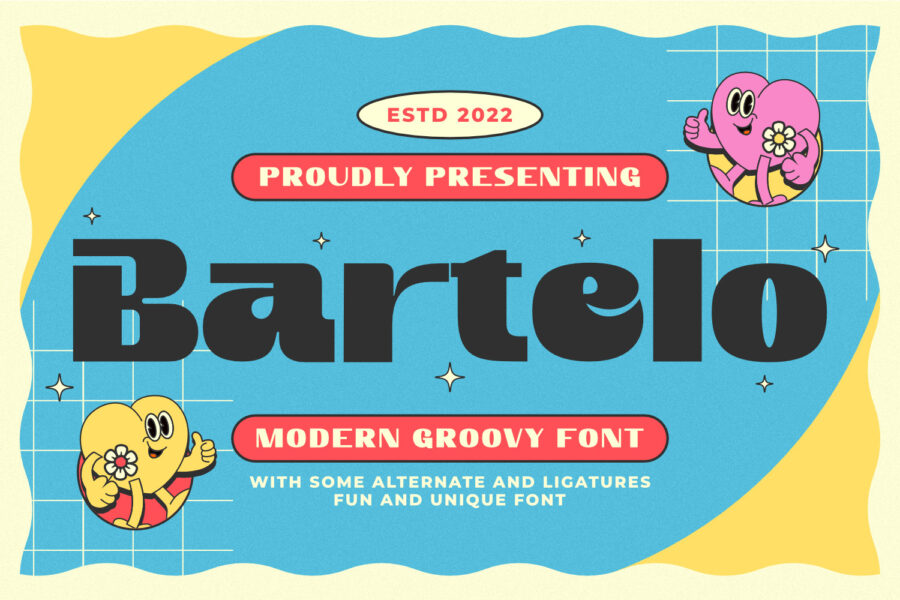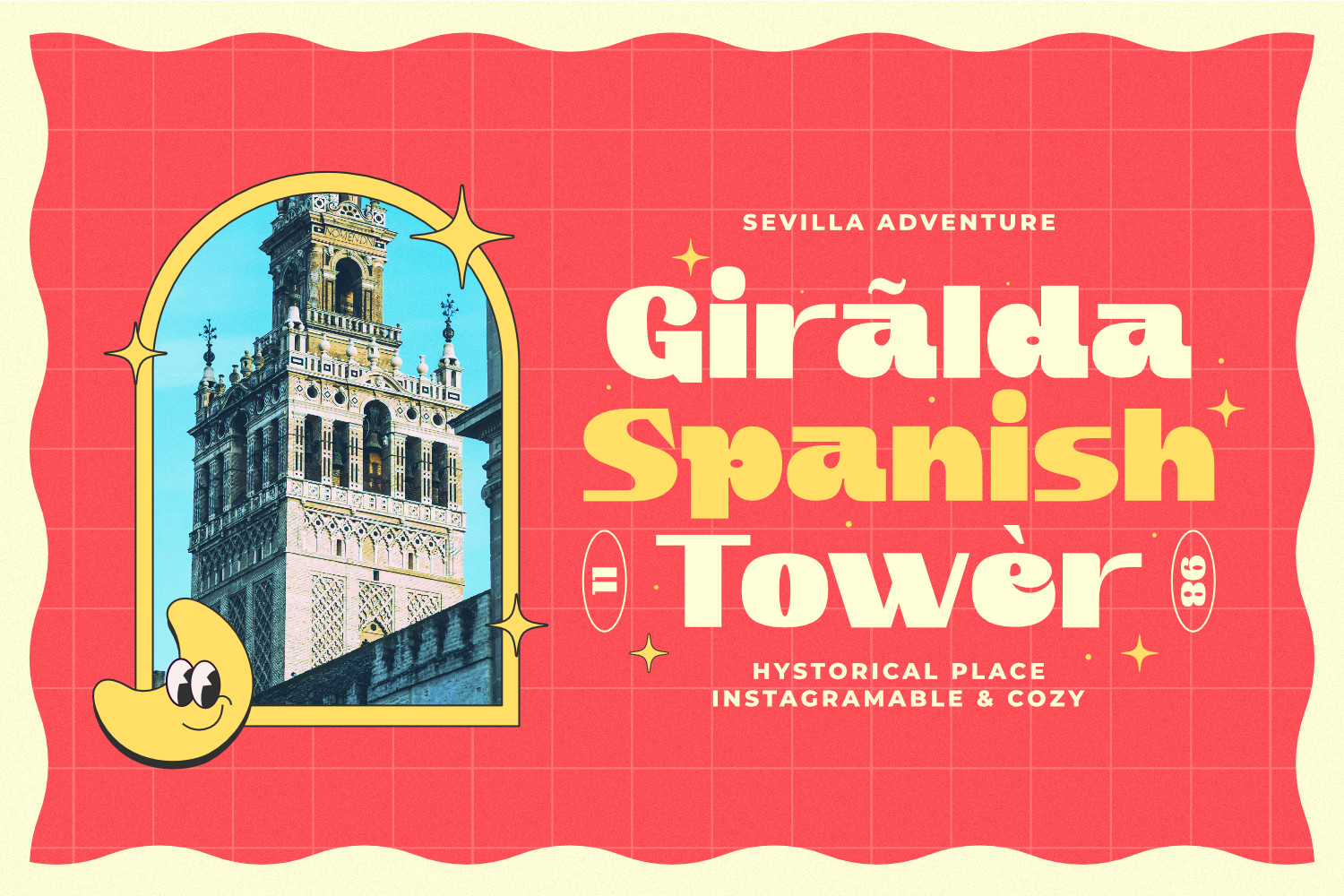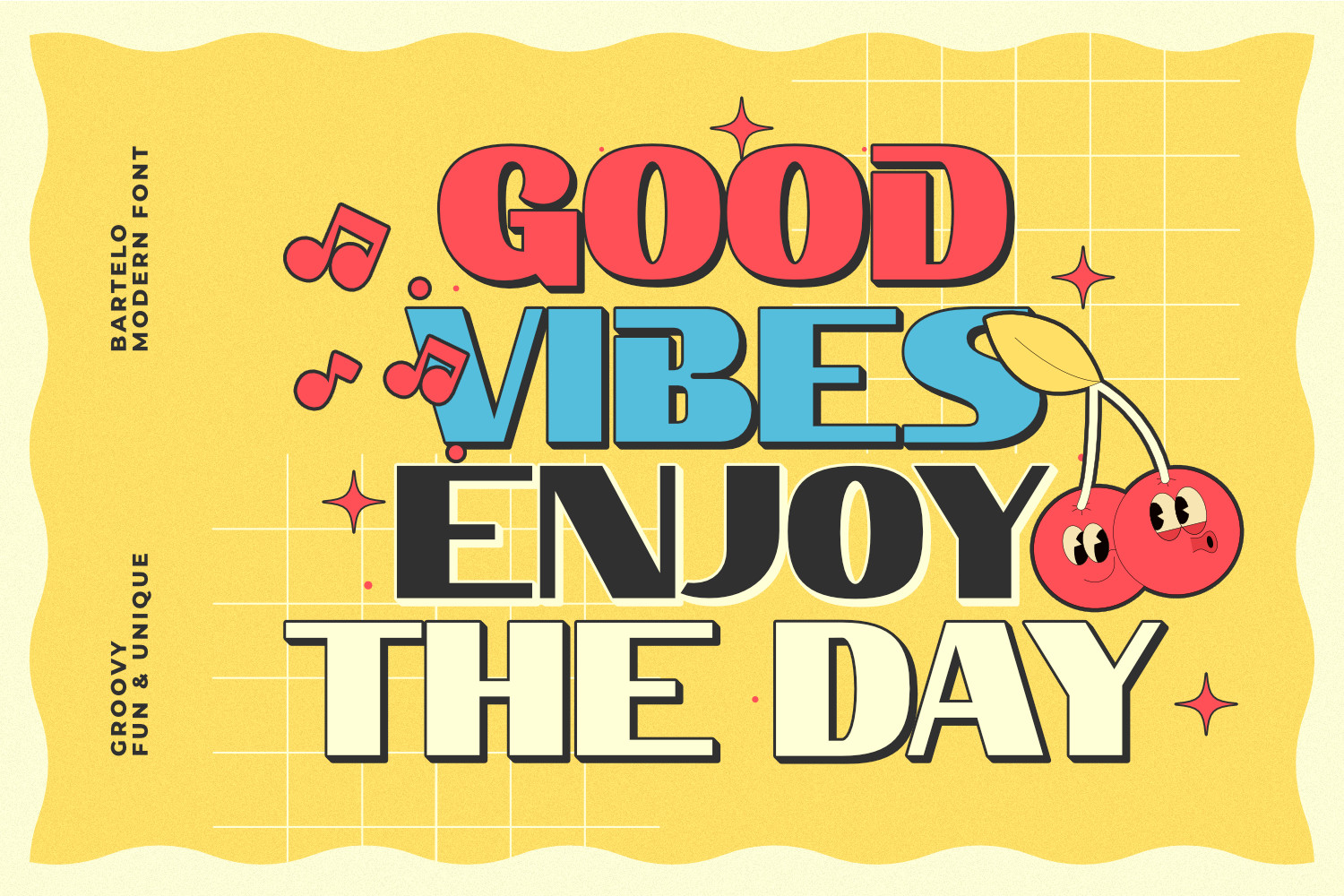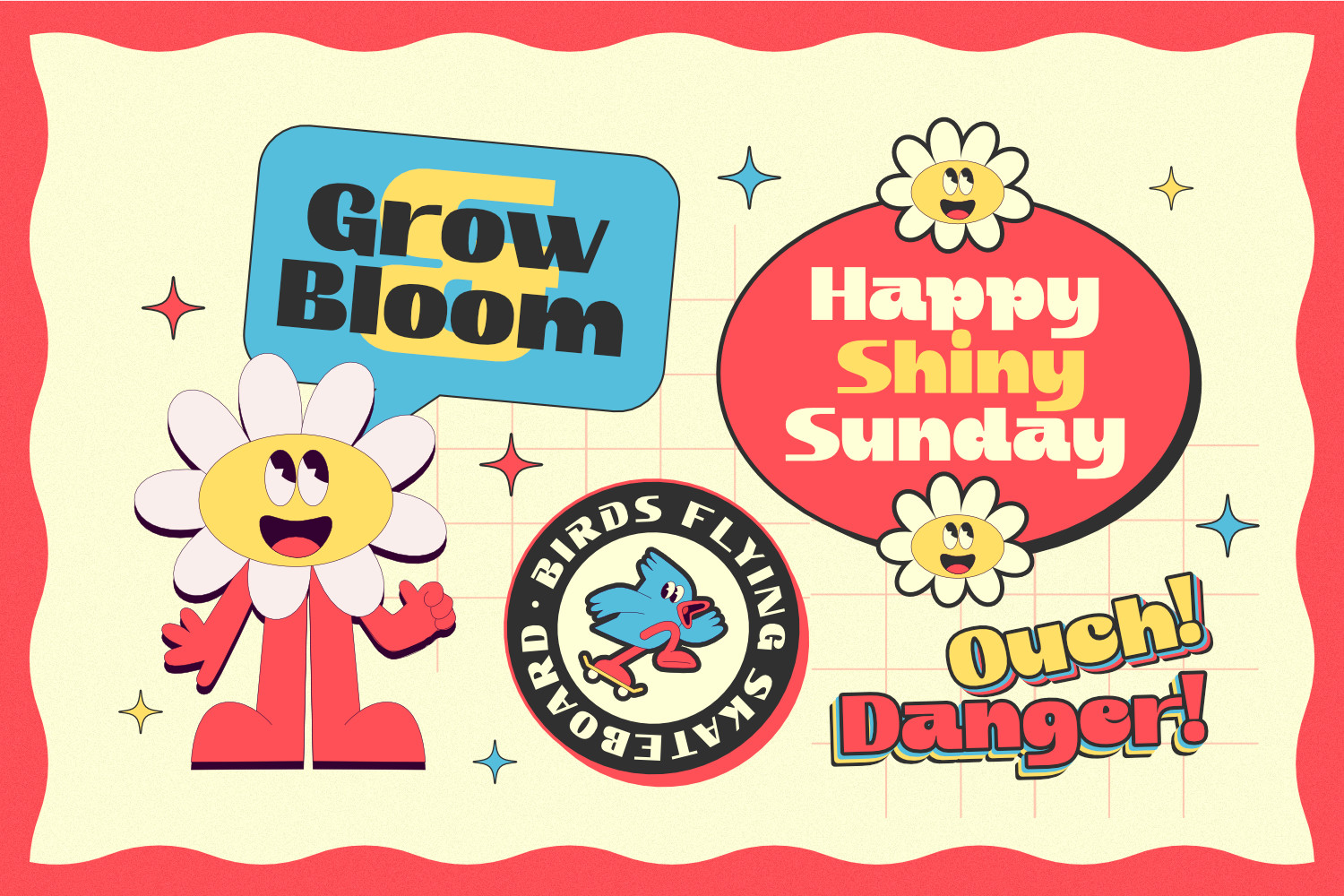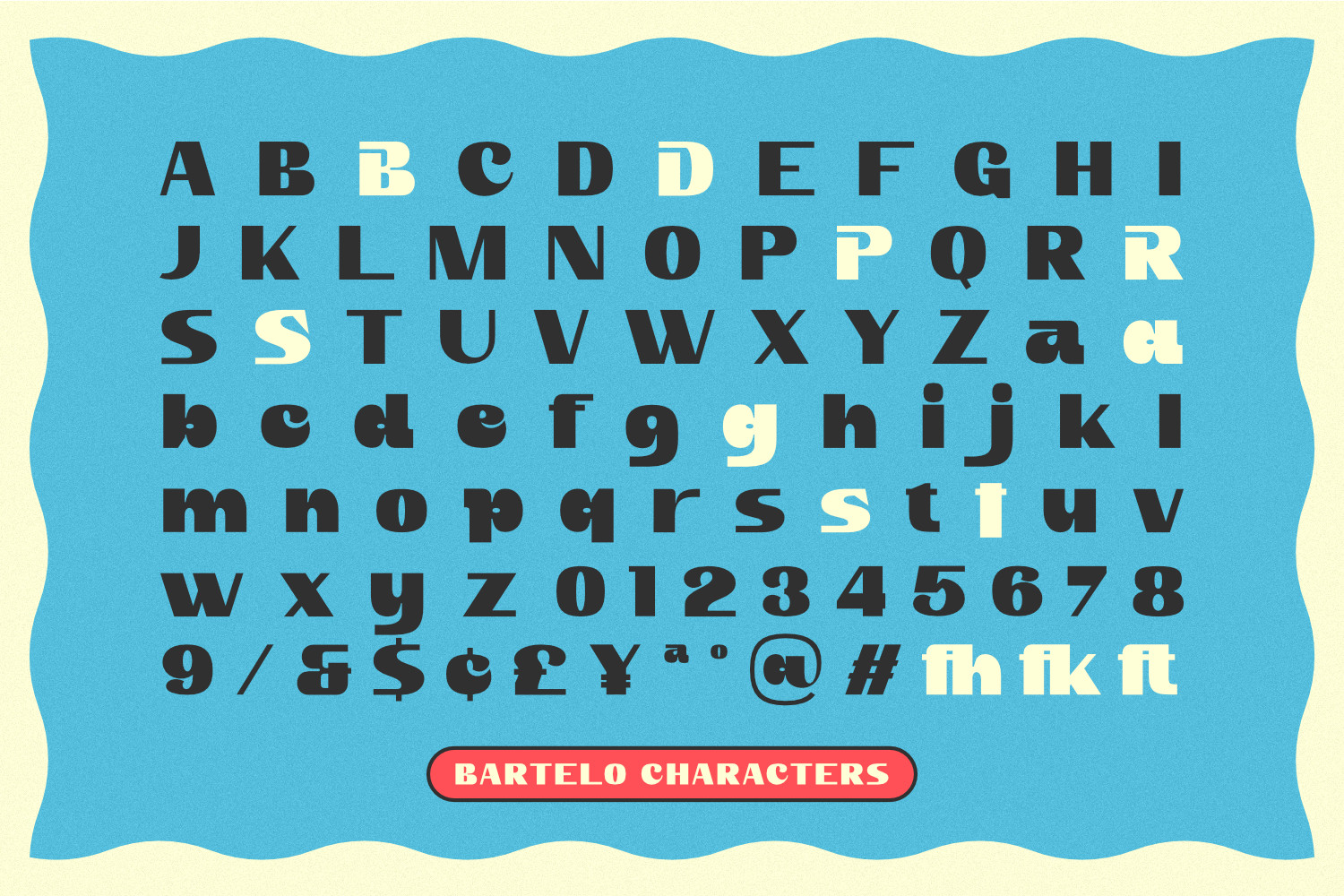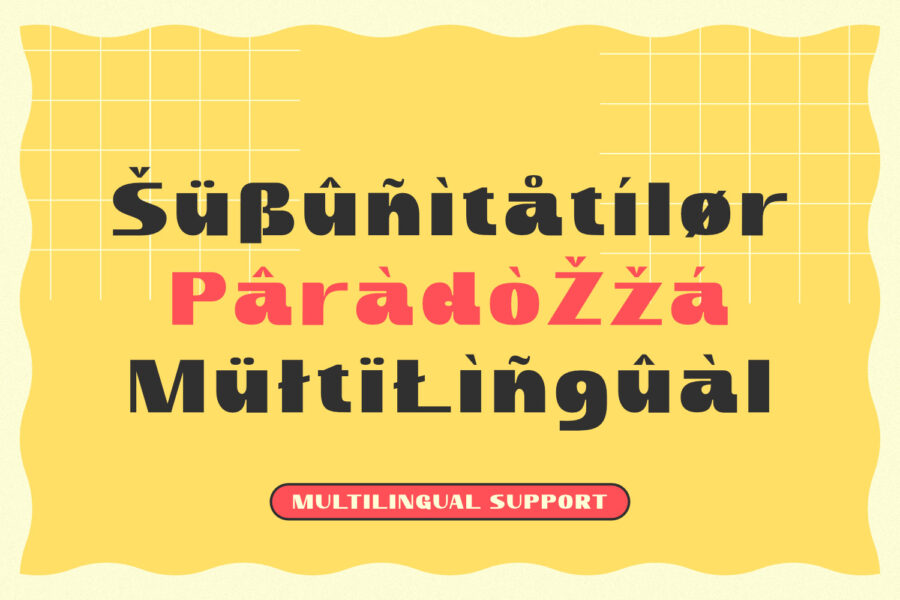
Bartelo is a bold, modern sans serif display font infused with a groovy retro spirit. Its chunky, high-contrast letterforms bring a strong personality to any creative work, while its unique alternates and ligatures add an extra layer of flair. Perfect for designs that aim to be fun, nostalgic, and eye-catching from posters and packaging to logos and apparel.
This font supports multilingual characters and features a complete set of alternates to maximize design versatility. With its upbeat and playful energy, Bartelo thrives in colorful, youth-oriented visuals, delivering both impact and charm in every word.
Bartelo